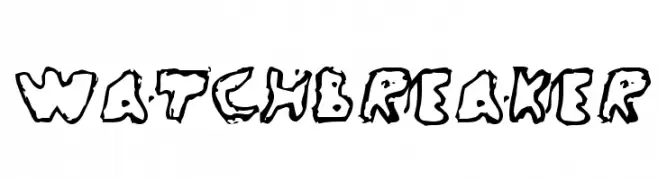
A rugged, distressed font with a cracked, edgy appearance.
A distressed, grunge-style font with a textured, weathered appearance.
A distressed, grungy font with bold, textured characters.
A bold, distressed font with a rugged, textured appearance.
A distressed, jagged font with an eerie, hand-drawn style.
A rugged, distressed font with bold outlines and shadow effects.